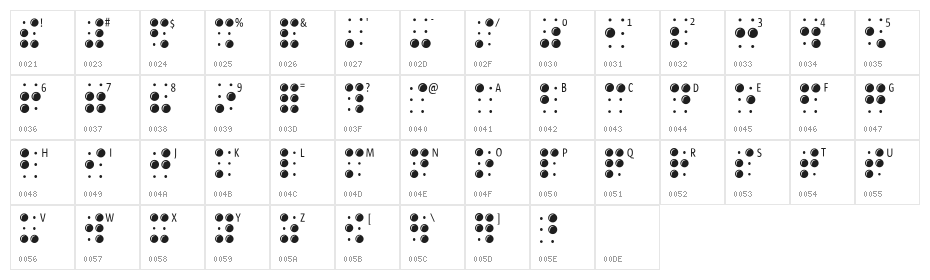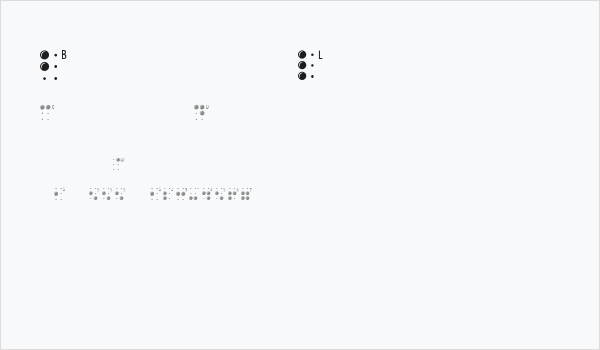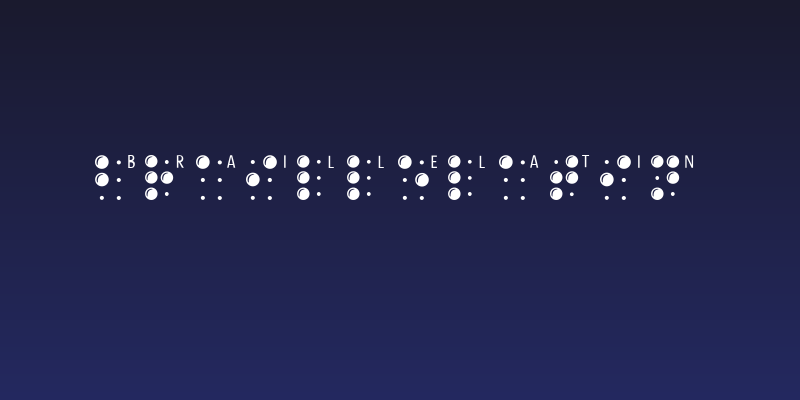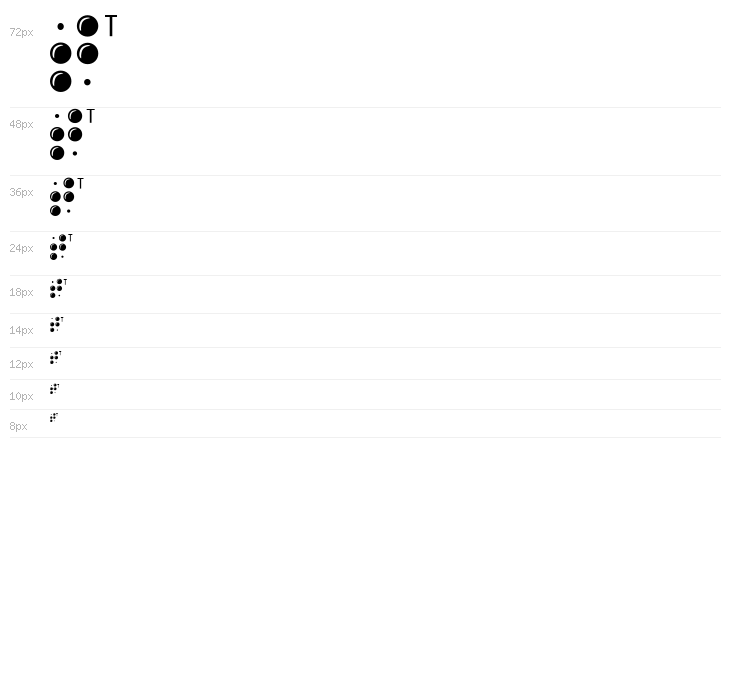
BrailleLatin Font
BrailleLatin Description
This image represents the Braille system, a tactile writing system used by people who are visually impaired. Each character is made up of a combination of raised dots arranged in a 2x3 grid. The system includes the full Latin alphabet from A to Z, numbers from 0 to 9, and several special characters. Braille is not a font in the traditional sense but a unique system of communication that allows for reading through touch. It is essential for accessibility and inclusivity, enabling those with visual impairments to read and write effectively.
| Overall Style | Functional |
| Use Case | Accessibility, Educational materials |
| Proposed Projects | Ideal for creating accessible materials, signage, and educational tools for the visually impaired. |